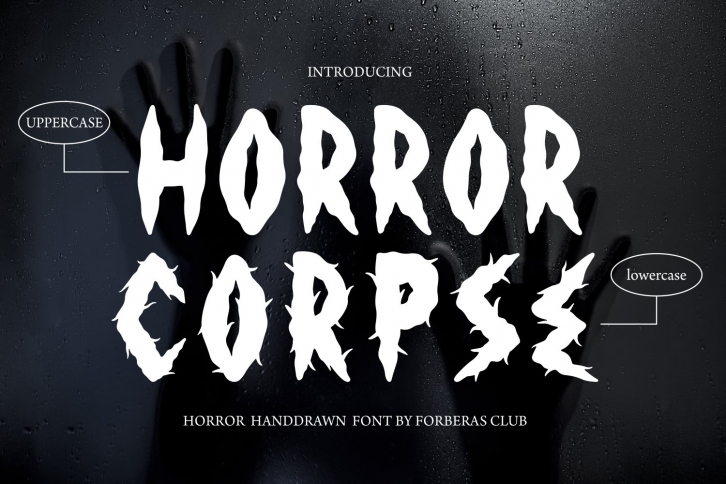
Horror Corpse is a gorgeous font that was realeased on October 27, 2022. The font can be used in many style contexts and design environments. Perfect for invitations, magazines, websites, logos, and more! It was designed by Forberas Club Foundry and the file size is 5.56 MB. Thanks for checking out this font!